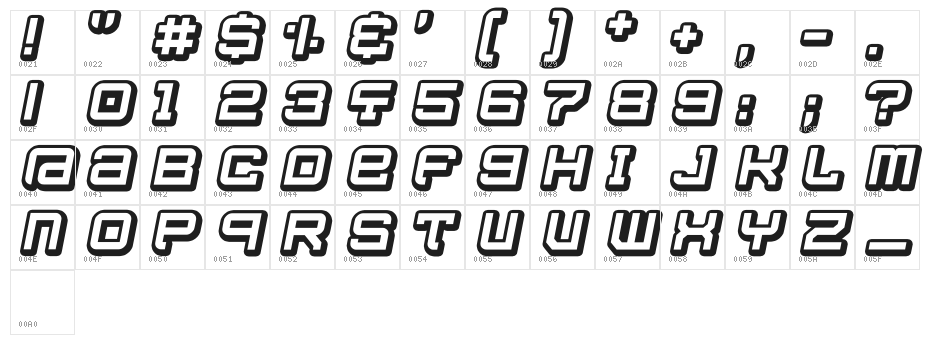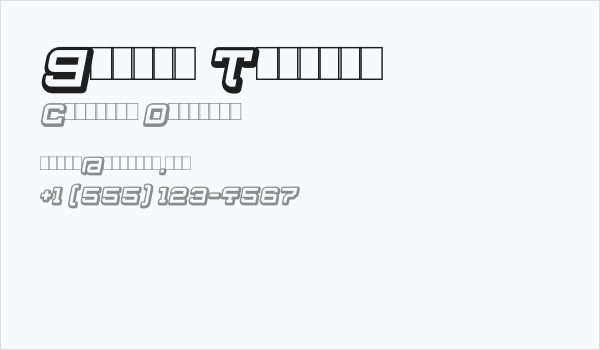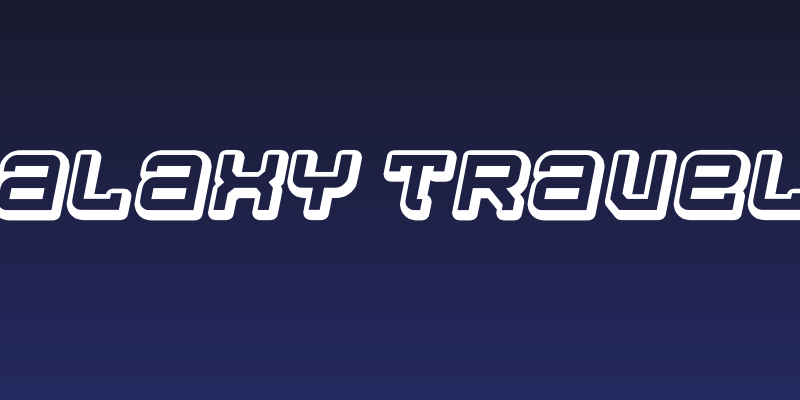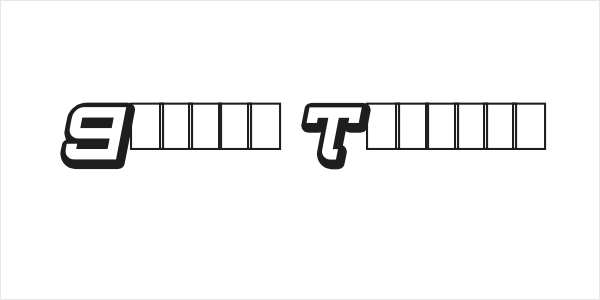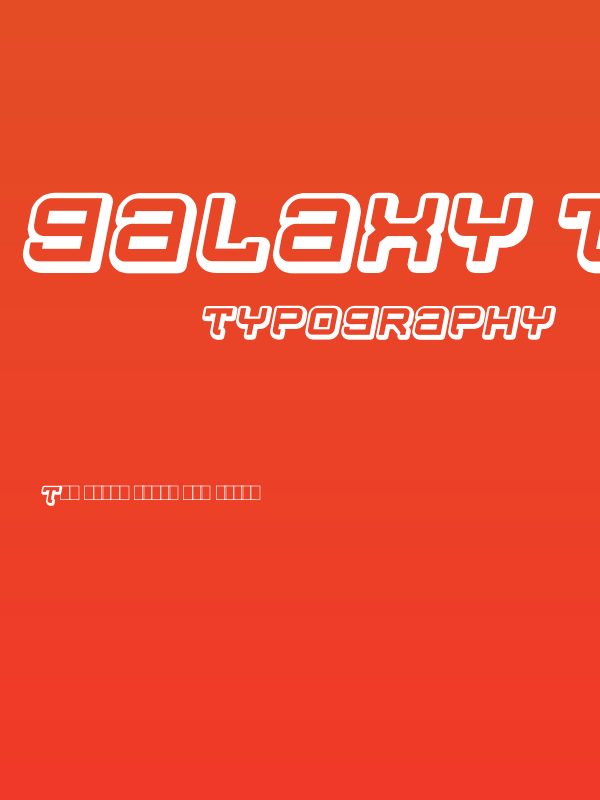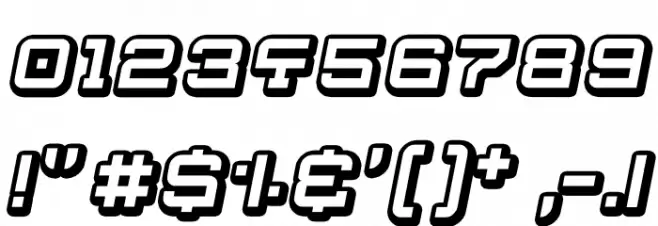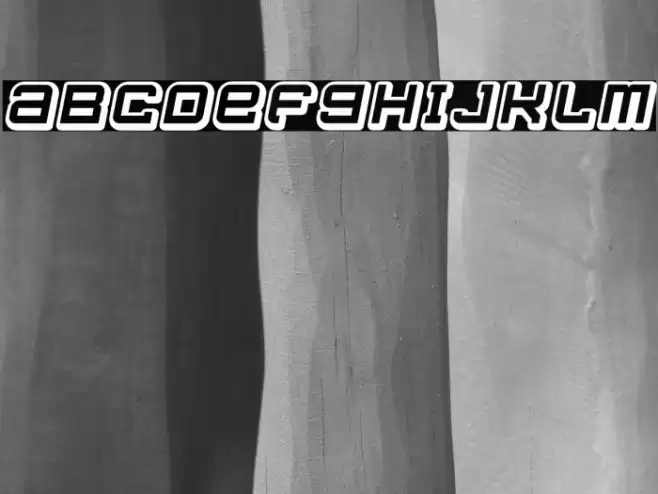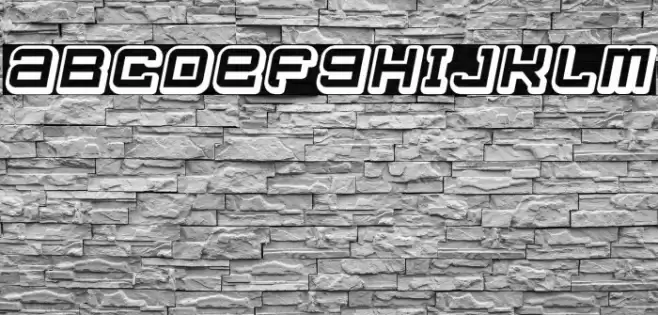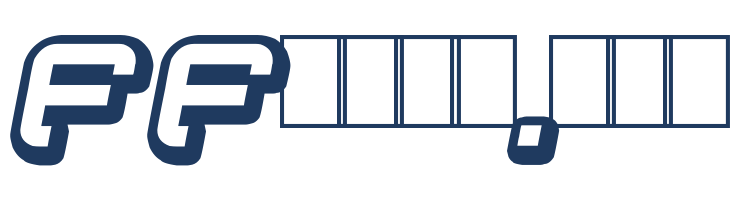
Galaxy Travels Font
This font features a bold, futuristic design with a strong outline that gives each character a three-dimensional appearance. The letters are uppercase and lowercase, with a consistent geometric style that emphasizes clean lines and rounded edges. The numbers and special characters follow the same design principles, ensuring a cohesive look across all elements. The font's unique style makes it stand out, with a playful yet modern aesthetic that is perfect for capturing attention.
| Proposed Projects | Ideal for sci-fi themed projects, video game titles, tech company logos, and modern posters. |